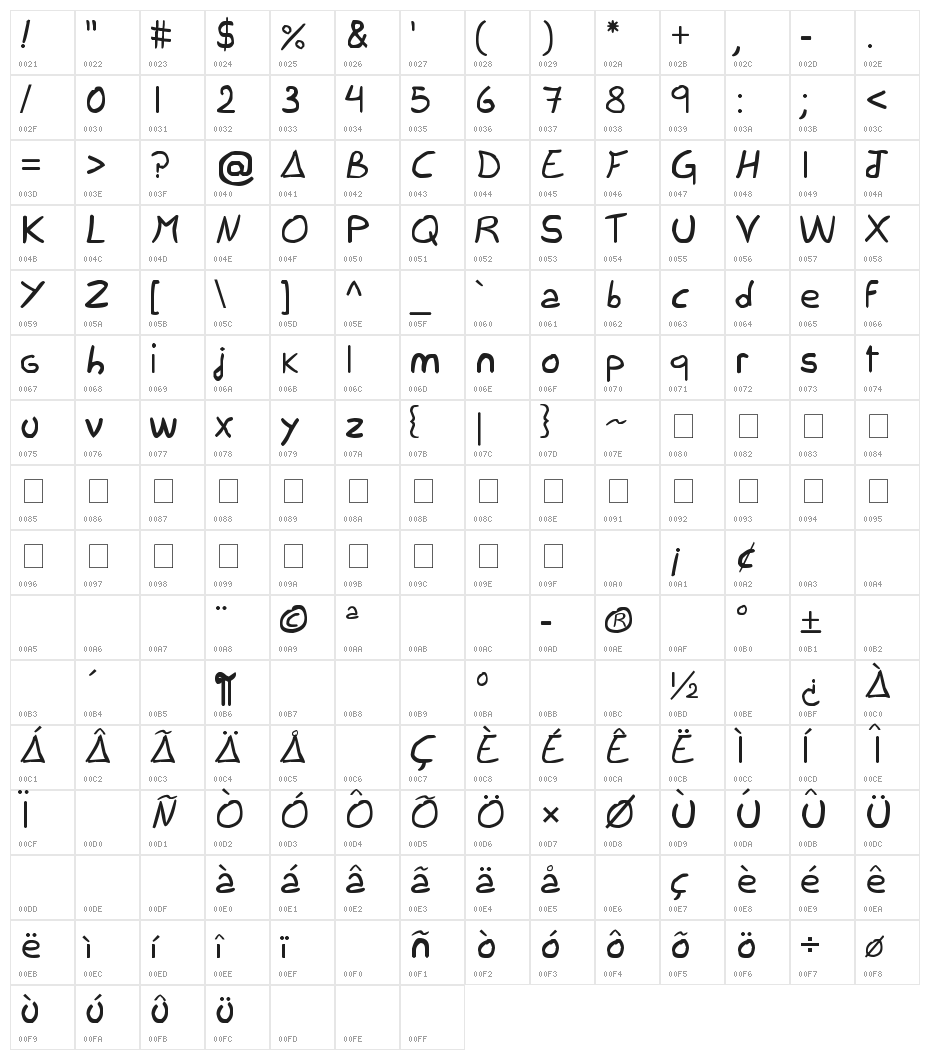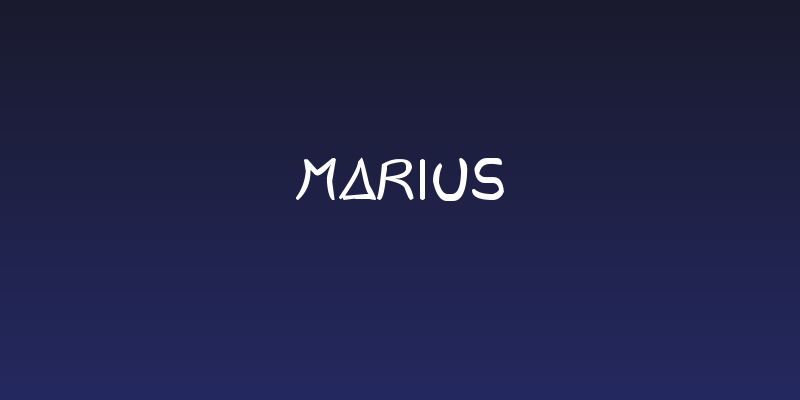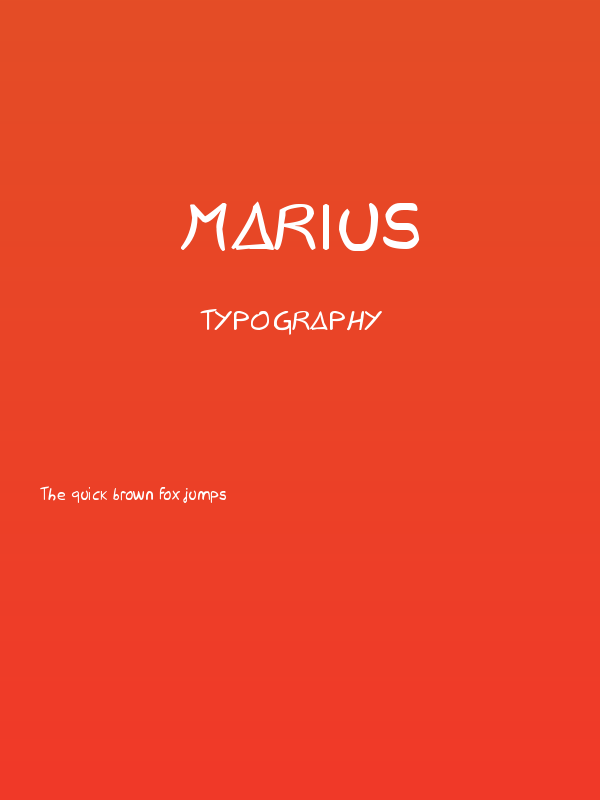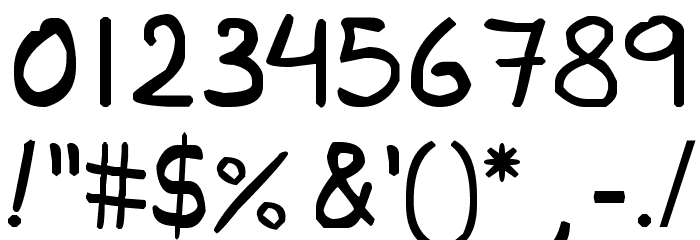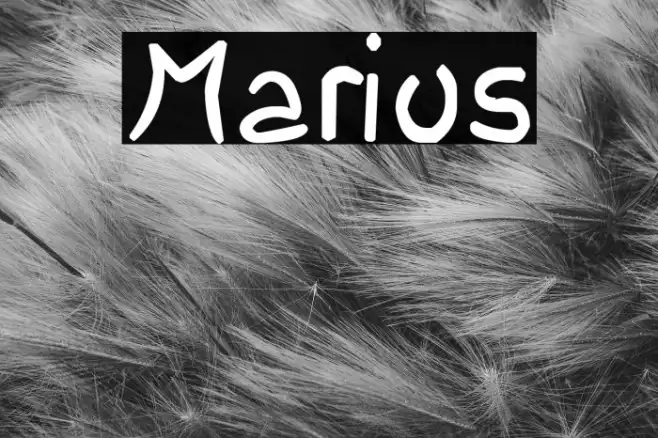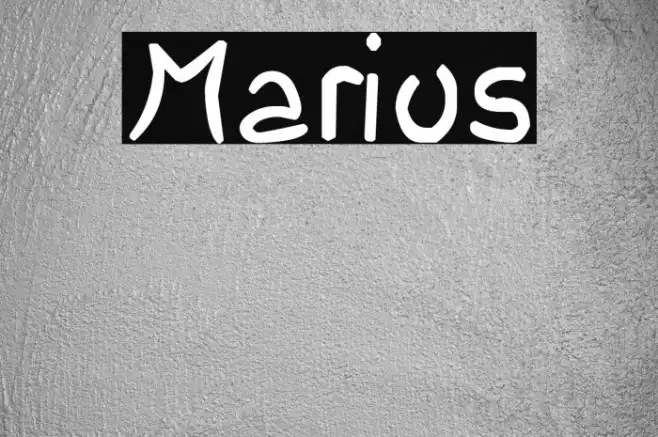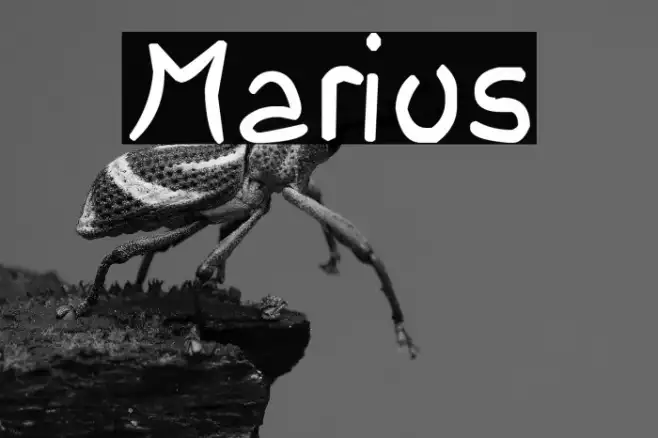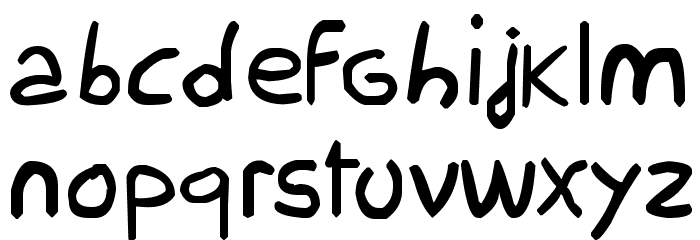
Marius Font
Marius Description
This font features a playful and casual handwritten style, characterized by its smooth, rounded edges and slightly irregular letterforms. The uppercase and lowercase letters maintain a consistent flow, giving a sense of movement and energy. The numerals and special characters follow the same design principles, ensuring a cohesive look across all elements. The font's overall appearance is friendly and approachable, making it suitable for projects that require a personal touch. Its informal style is ideal for creative and artistic applications, where a relaxed and inviting tone is desired.
MARIUS UPPERCASE
MARIUS LOWERCASE
MARIUS OTHER CHARS
| Proposed Projects | Ideal for greeting cards, children's books, casual branding, and social media graphics. |